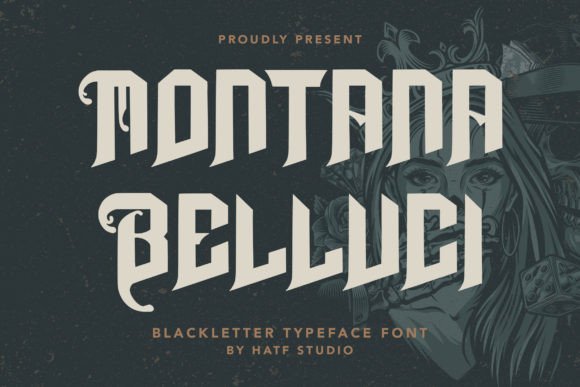
Prepare yourself to be mesmerized by Montana Belluci, a blackletter font that oozes sophistication and elegance. Its contemporary style, inspired by the beauty of modern calligraphy, will leave you breathless. Each letter is a work of art, carefully crafted to capture the essence of timeless allure. Immerse yourself in its delicate curves and intricate details that tell a story of sophistication and charm.
Express your creativity like never before with Montana Belluci. Its versatility knows no bounds, making it the perfect choice for branding, product packaging, social media posts, and any project that demands a touch of sophistication. Unleash your inner artist and let your designs shine with a font that speaks volumes.
Visualize your designs come to life with Montana Belluci. Its bold and daring typography will command attention, leaving a lasting impression on your audience. Its unique blackletter style will add a touch of exclusivity, making your creations stand out from the crowd.
Step into a world of endless possibilities with Montana Belluci. Its user-friendly nature makes it a joy to work with, allowing you to seamlessly integrate it into your design projects. Experience the ease of use and let your creativity soar to new heights.